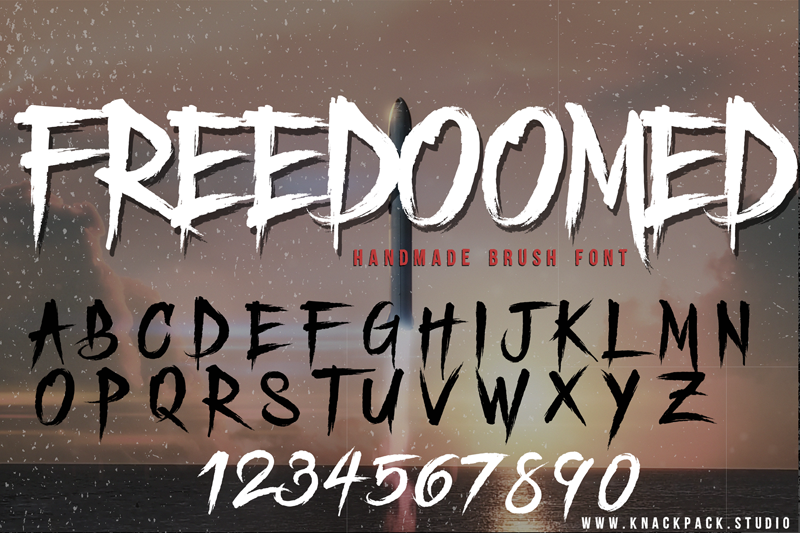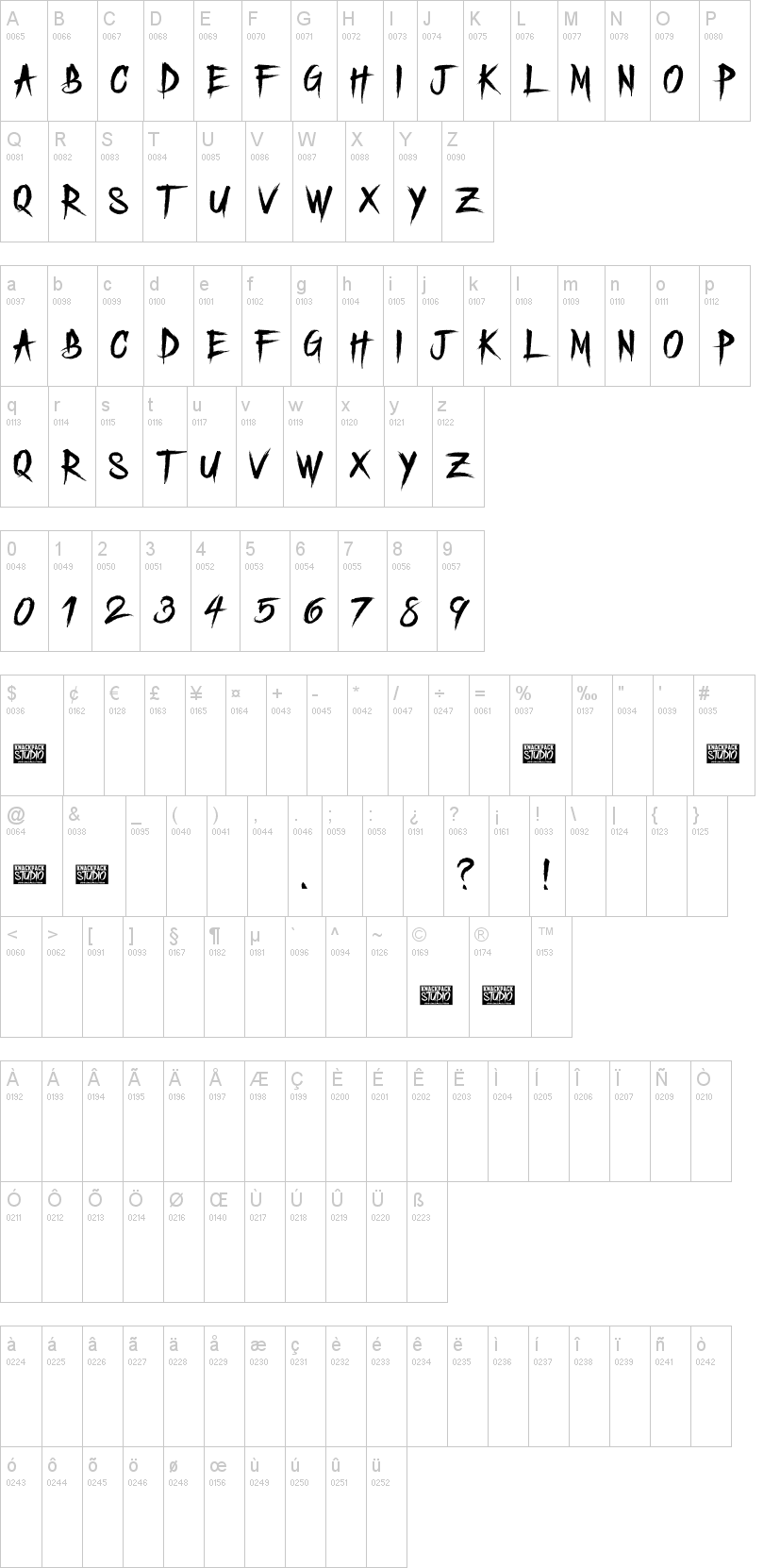
Note of the authorFont:Freedoomed
Type: Hand Created Brush
- Special hand created brush fonts
- Perfect for lifestyle needs and product branding
- Available in uppercase and lowercase